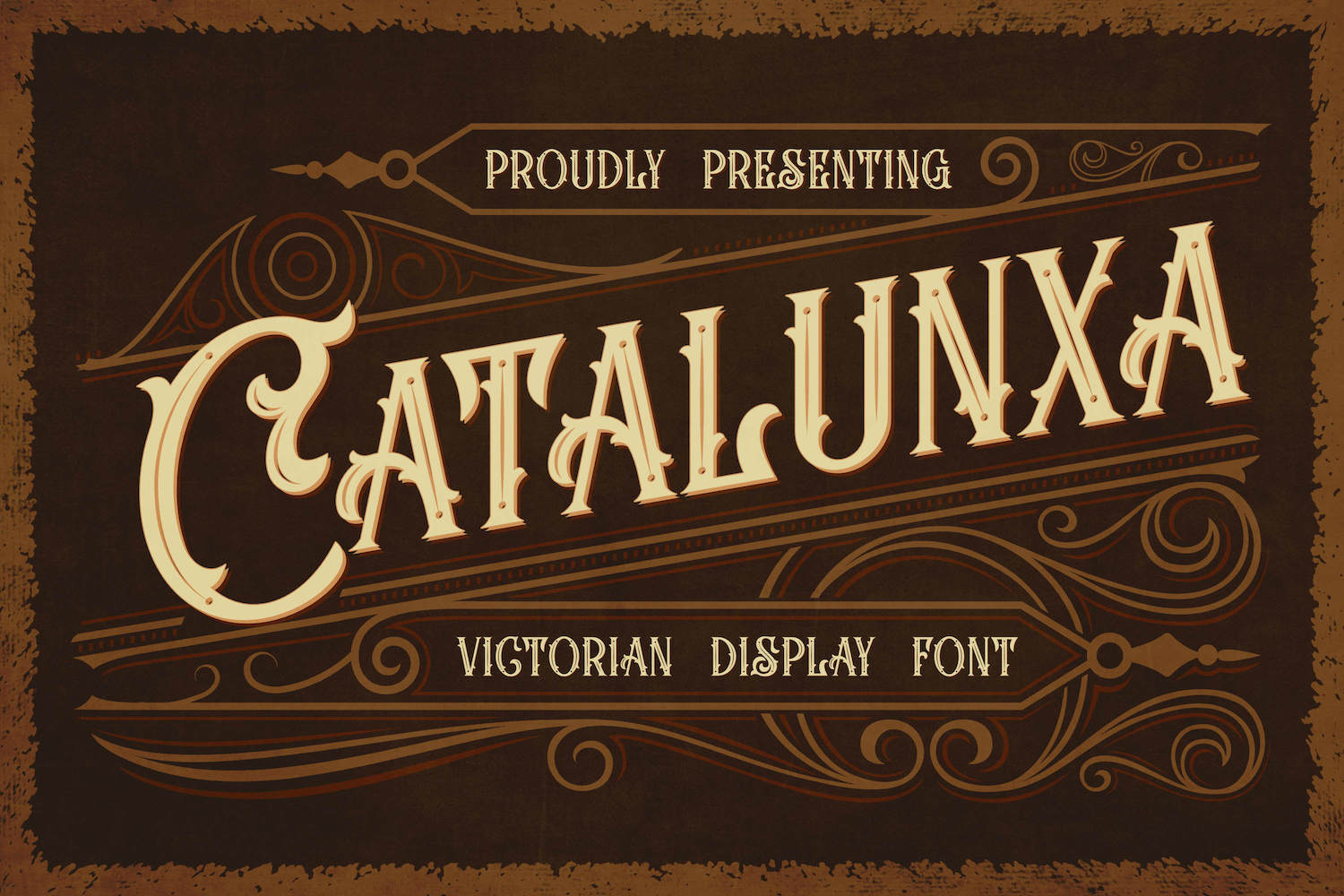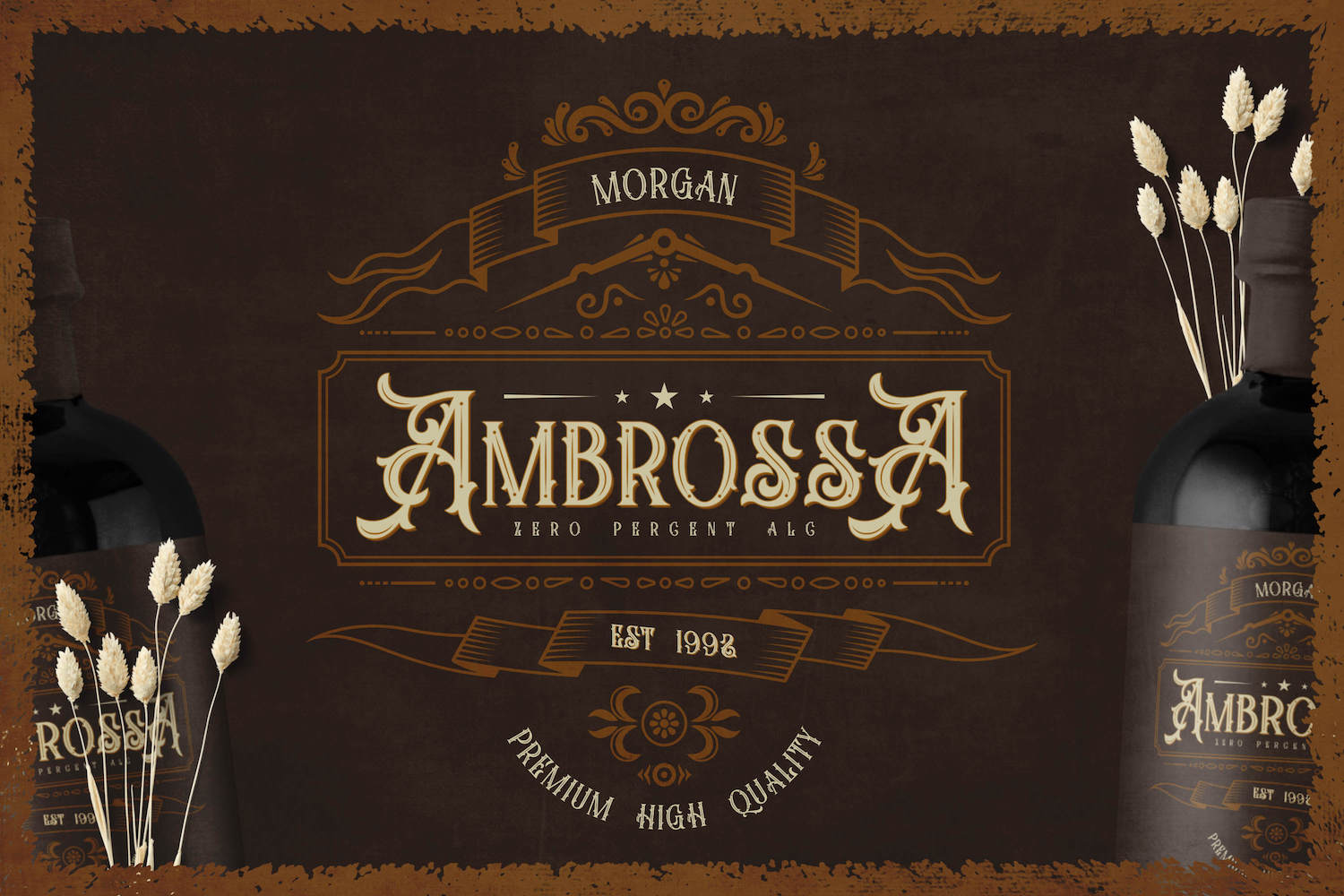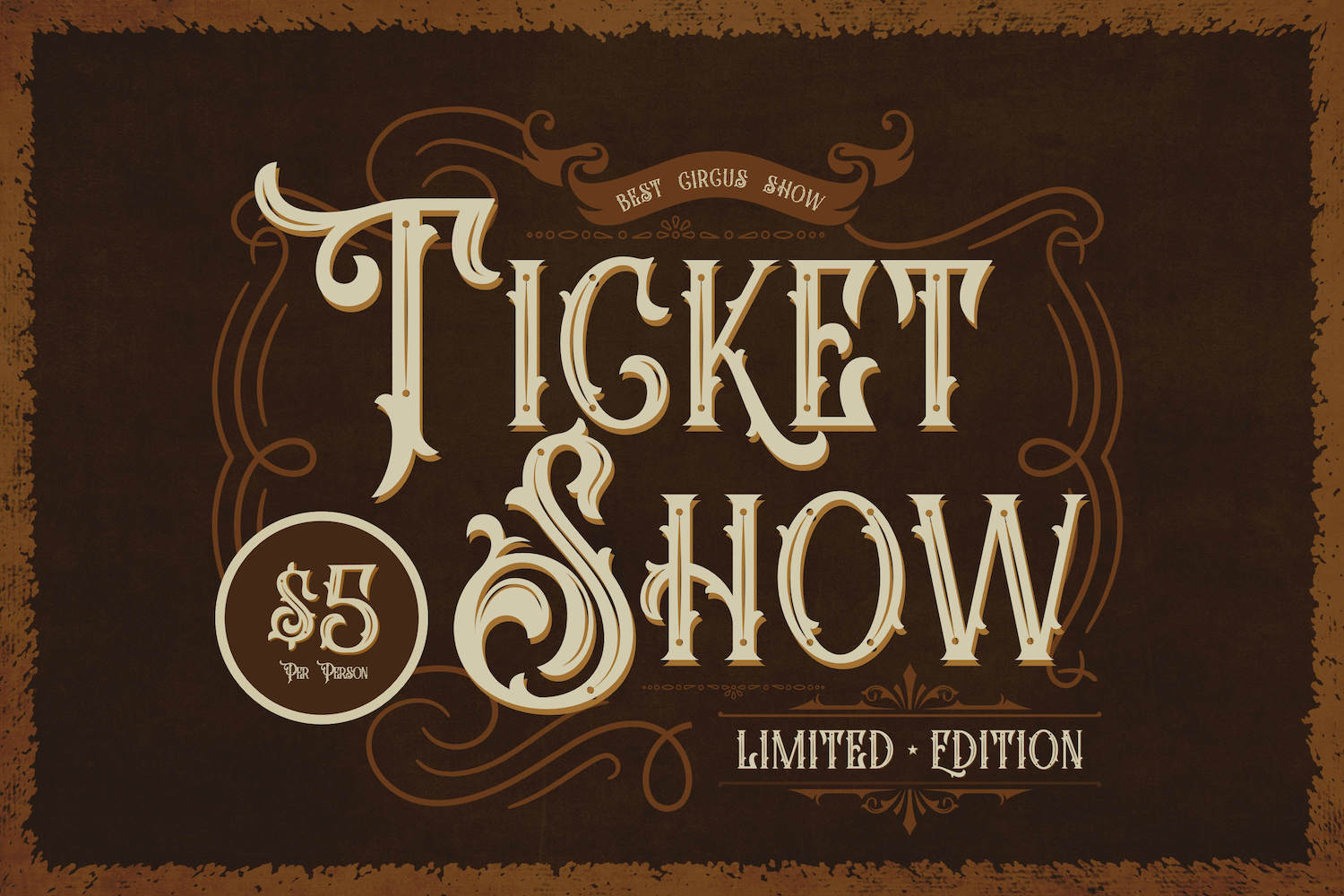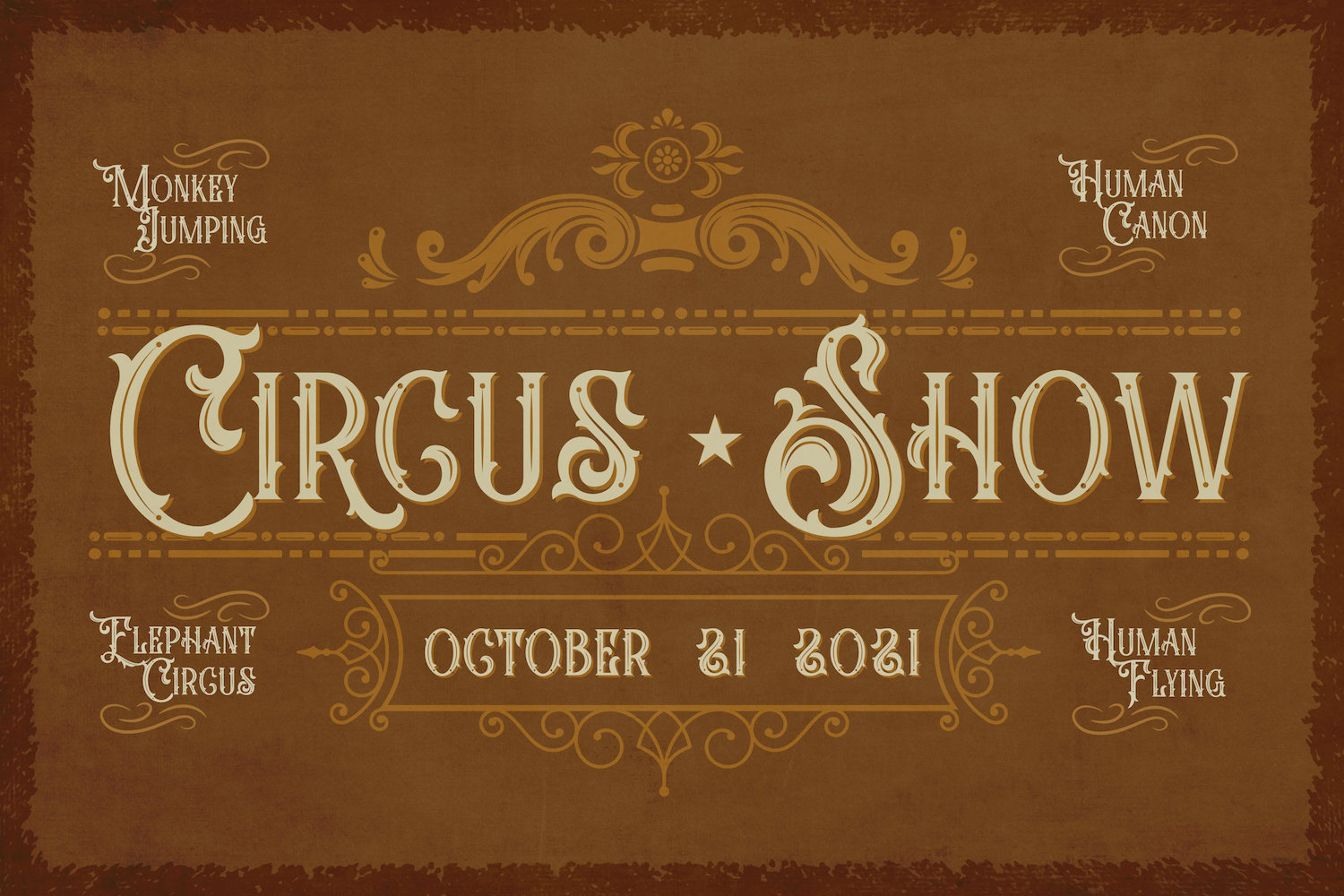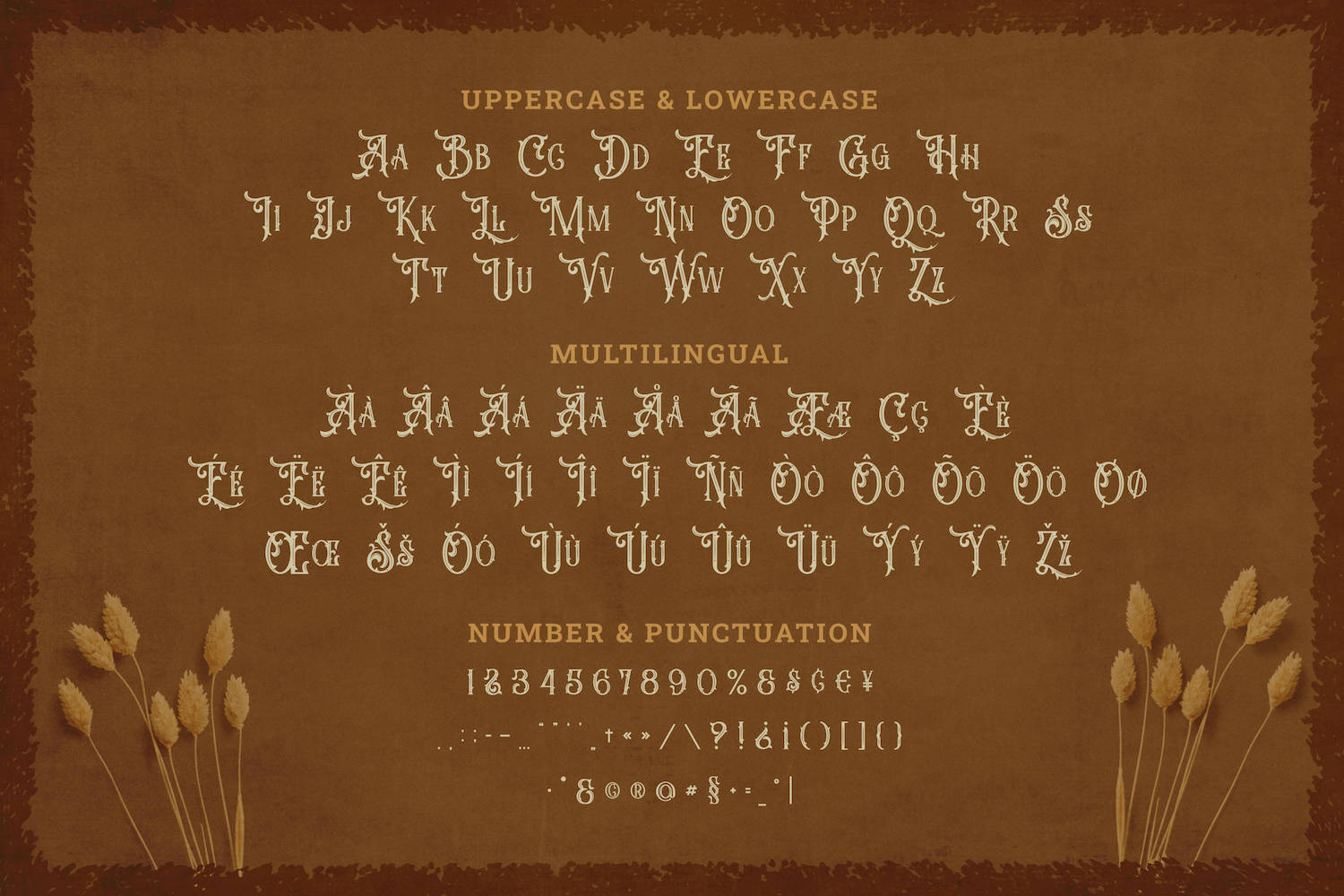
Step into the grandeur of the Victorian era with Catalunxa, a display font that brings classic elegance and theatrical charm to your designs. With its ornate letterforms and decorative flair, Catalunxa evokes the richness of vintage playbills, circus posters, and antique signage. The font features sharp serifs, high contrast, and unique character shapes that capture the essence of timeless craftsmanship and nostalgia.
Perfectly suited for branding, packaging, and editorial design, Catalunxa is especially impactful in large-scale applications like headlines, logos, and event posters. It also includes multilingual support and a full set of punctuation and numerals, ensuring versatility across a wide range of creative projects. If you’re looking to add a touch of old-world sophistication and drama, Catalunxa is your perfect typographic companion.
Catalunxa